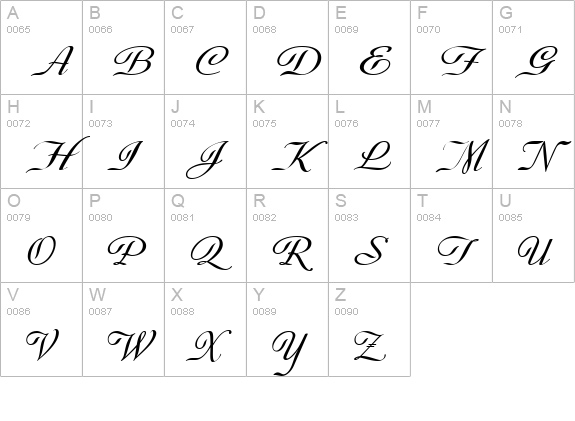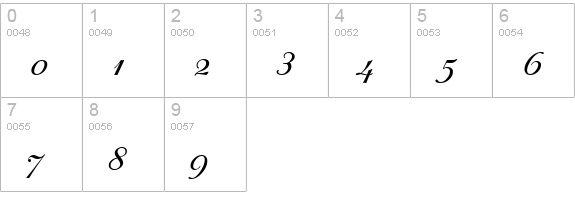
StellaAnnJF Font Details
StellaAnnJF is a stylish and elegant font that exudes sophistication and charm. Its delicate curves and graceful lines make it perfect for adding a touch of class to any project. Whether you're designing a wedding invitation, creating a logo, or crafting a poster, StellaAnnJF will elevate your work to the next level. The best part? StellaAnnJF is completely free to download at FontsMarket.com. That's right, you can enhance your designs with this exquisite font without spending a dime. So why wait? Give your projects a touch of elegance with StellaAnnJF today!